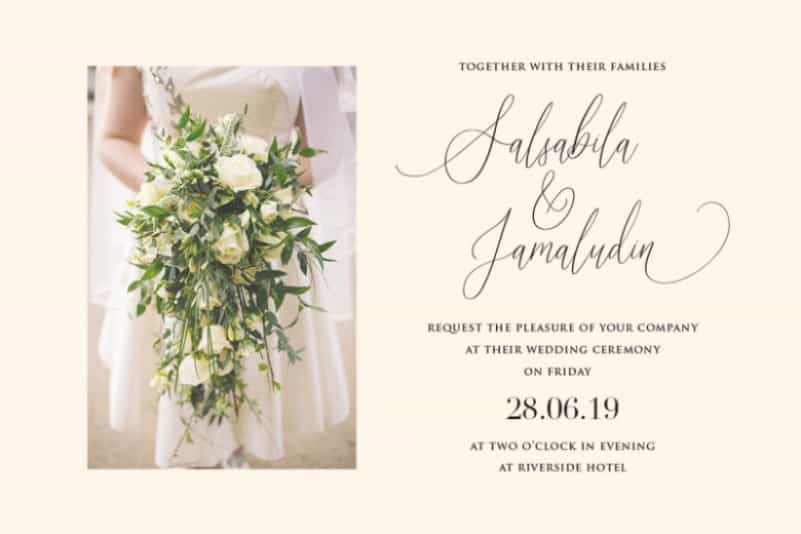
Meet the latest wedding calligraphy typeface, the Audrey & Reynold Font!it provides a lovely typographic harmony for different design projects. AudreyReynold is the calligraphy typeface of the modern times that is characterized by the sophisticated and contemporary accents. It is just right for wedding branding, wedding invites and cards, and even maybe for red wine label.